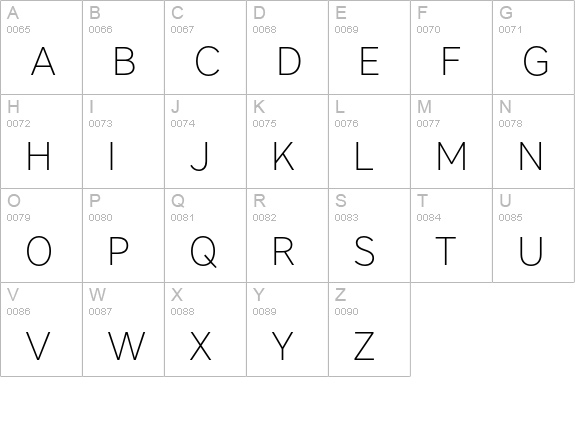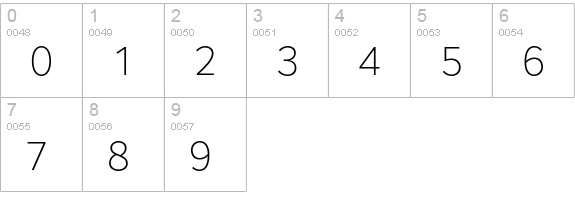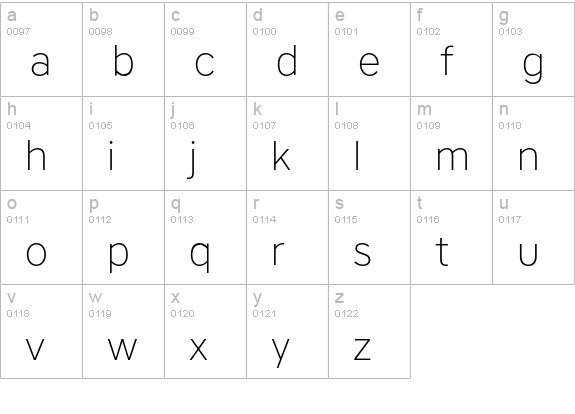
Core Sans A 25 ExtraLight Font Details
Core Sans A 25 ExtraLight is an airy, ultra-refined variant in the Core typeface family \xE2\x80\x94 well suited to minimalist headlines and refined display use.
Core Sans A 25 ExtraLight is a modern and elegant font that exudes sophistication and minimalism. With its sleek design and clean lines, this font is perfect for creating a contemporary and professional look in various design projects. The ExtraLight weight adds a touch of airiness and delicacy to any text or headline, making it ideal for conveying a sense of subtlety and refinement. What makes Core Sans A 25 ExtraLight even more appealing is that it is available for free download at FontsMarket.com. Now you can easily access this high-quality font without any cost, allowing you to enhance your designs with a premium typeface that will make a lasting impression. Don't miss out on the opportunity to elevate your projects with Core Sans A 25 ExtraLight – download it for free today!